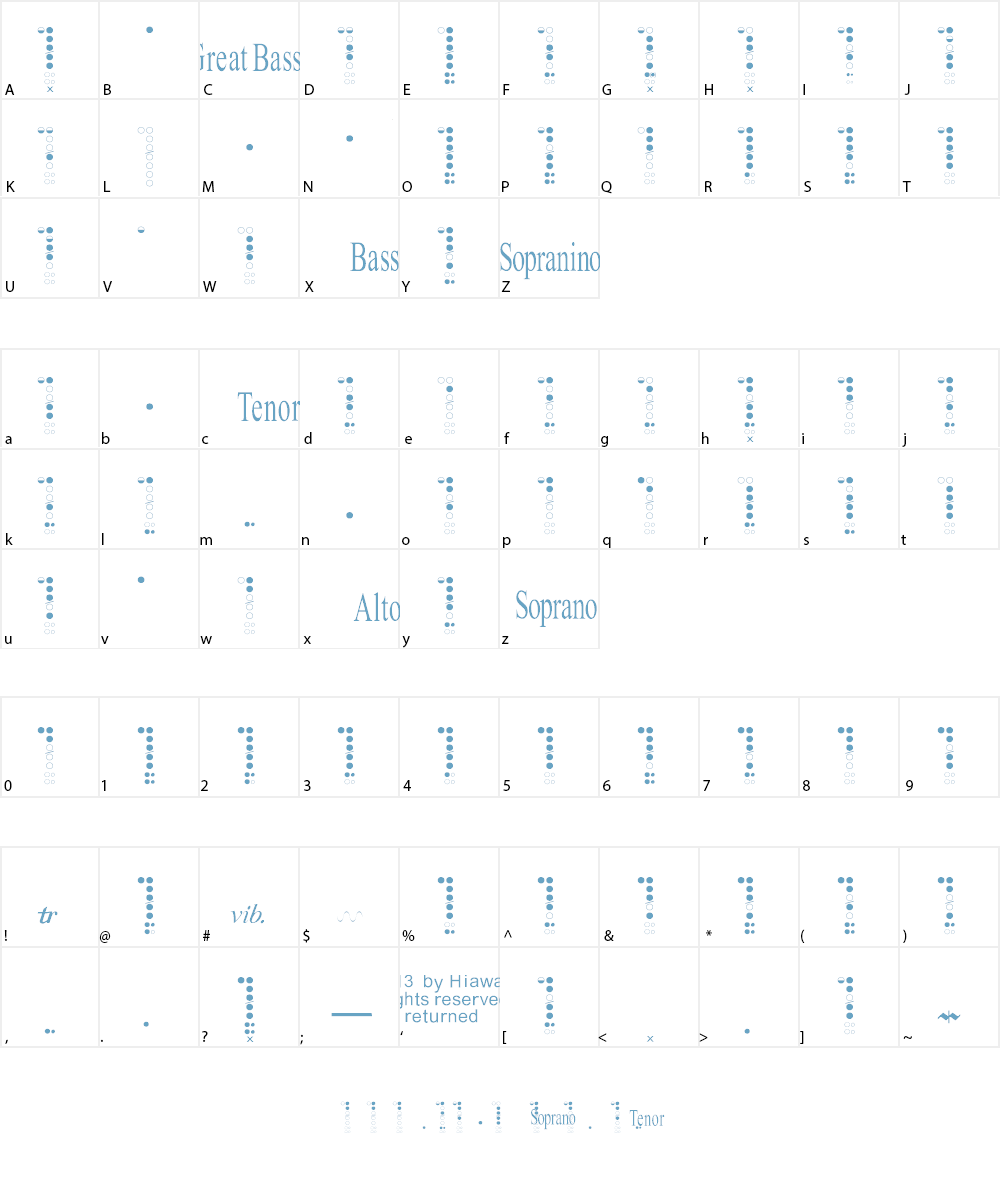
I'm a composer and recorder player and teacher, and decided that it would be useful to have some standard recorder fingerings available from the keyboard as a font. Some fingering fonts already exist, but I found none that was both as extensive as mine /and/ free, so here it is, my second font. This font contains 124 symbols, including 88 recorder fingerings and 36 other recorder-related notational elements. There are also elements which allow you to create your own fingerings -- albeit tediously -- in any word processor which allow character overstrikes to be set up.